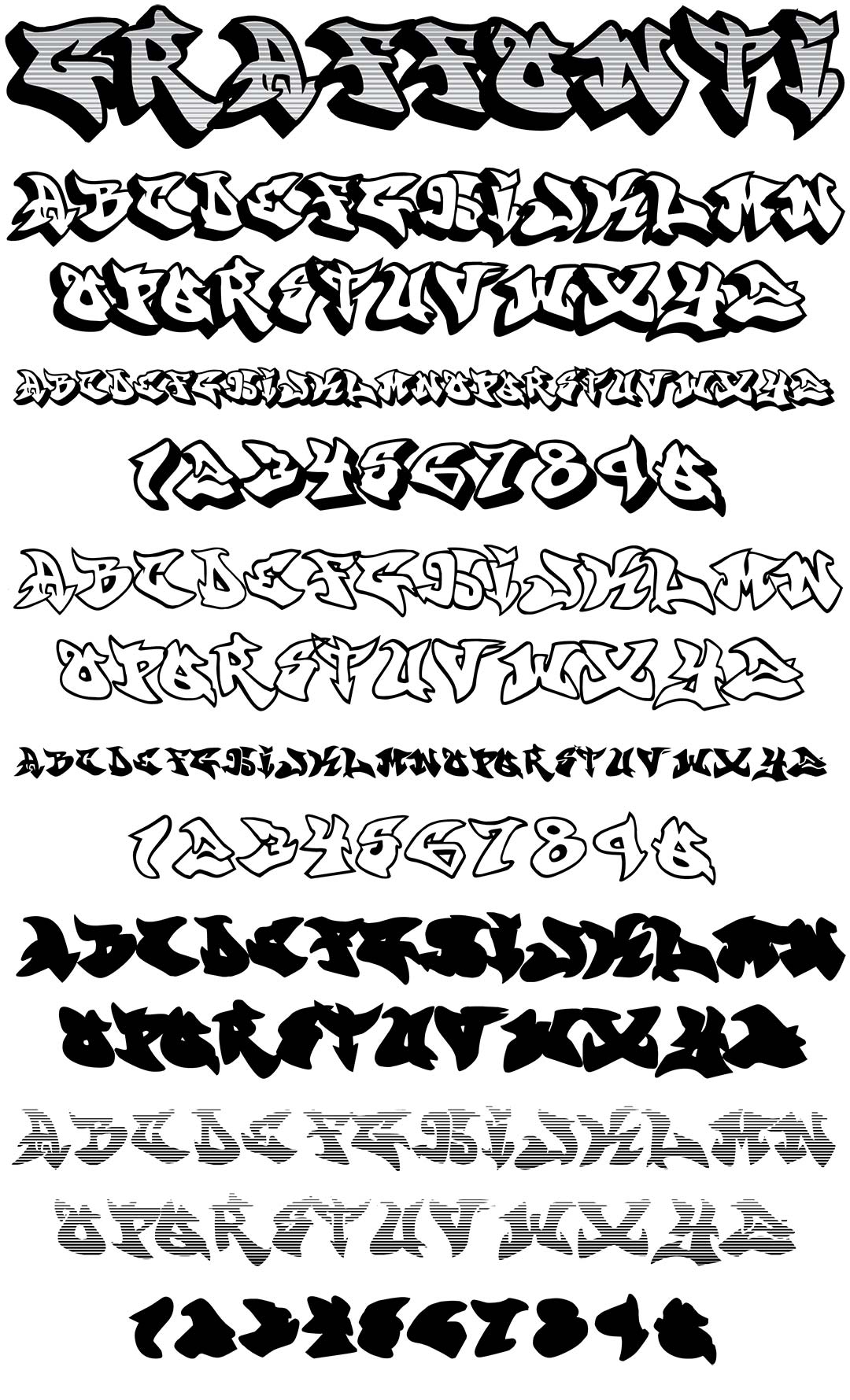
Graffonti
Graffonti Graffiti Alphabet
Graffonti Graffiti Font Family
Graffonti is another "Throw up", "Throwie" or "Stamp" style font. The family includes 3 fonts offering a total of 5 variations on the alphabet. There are outline, fill, gradient & solid styles are all included.